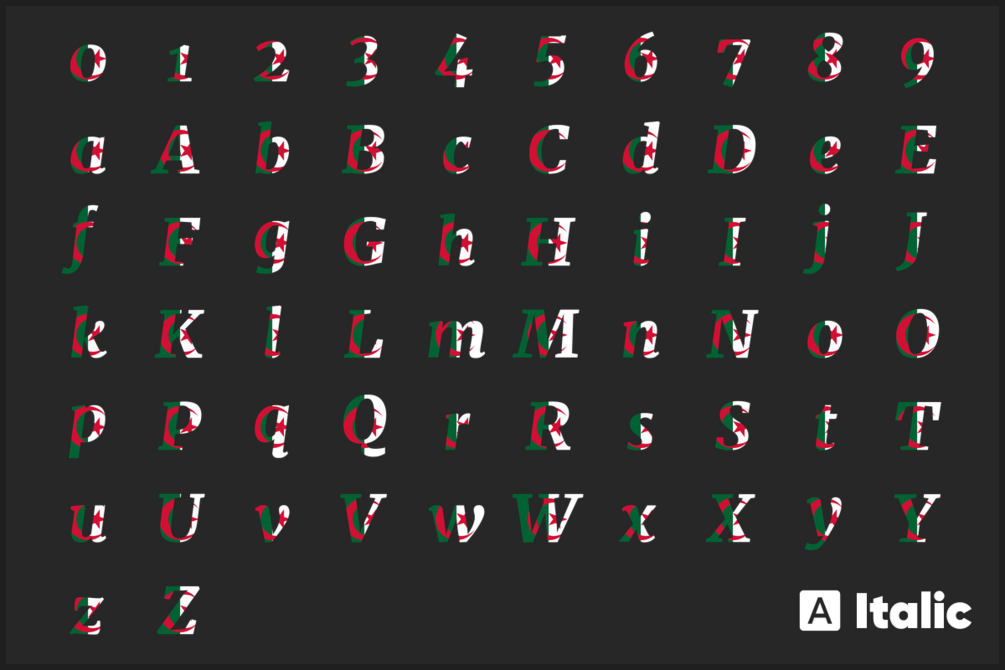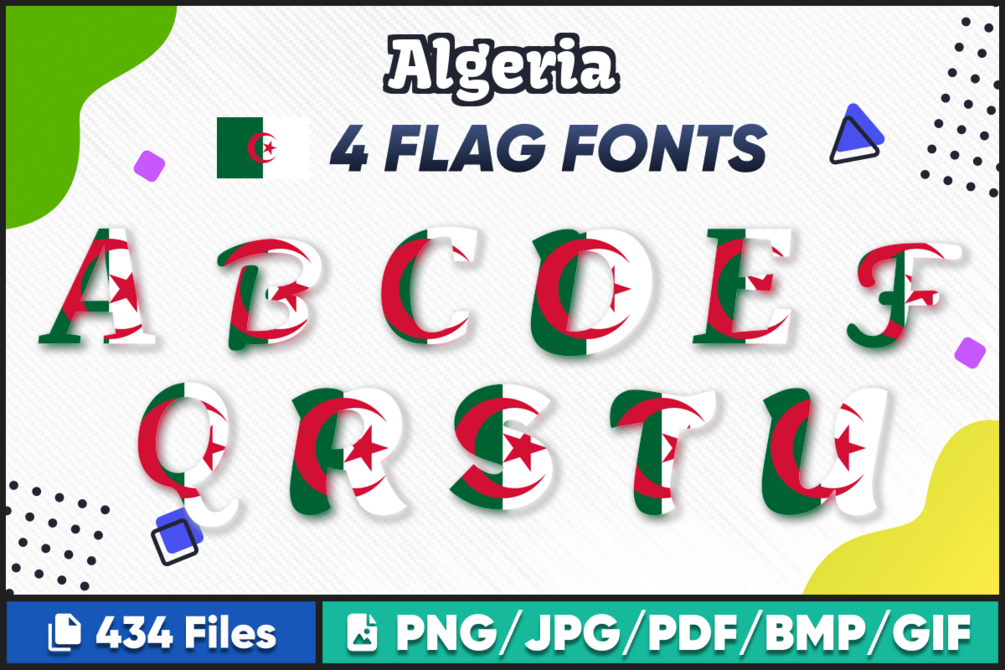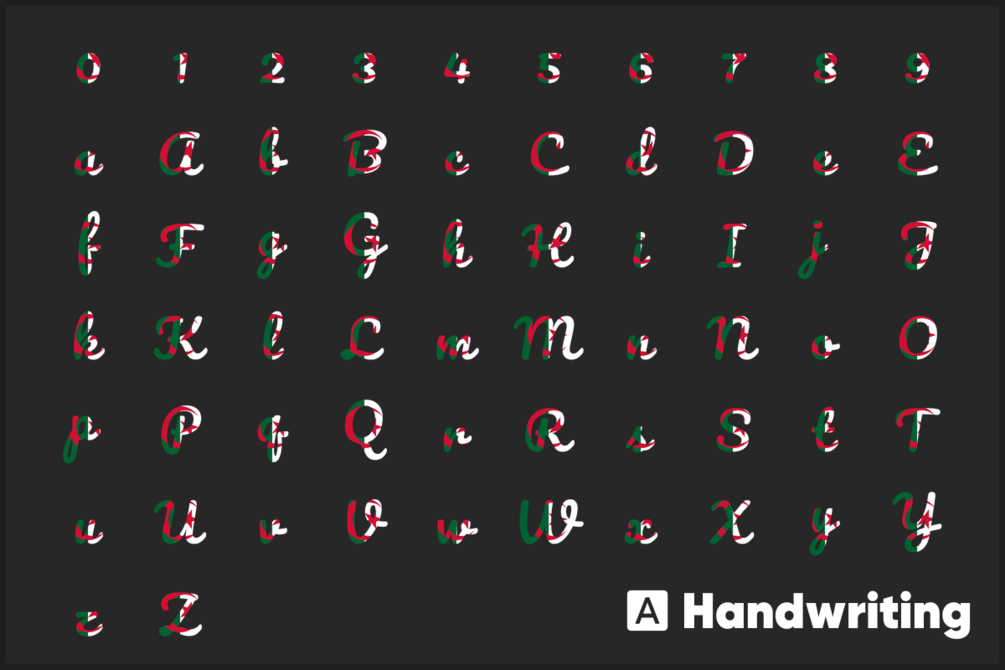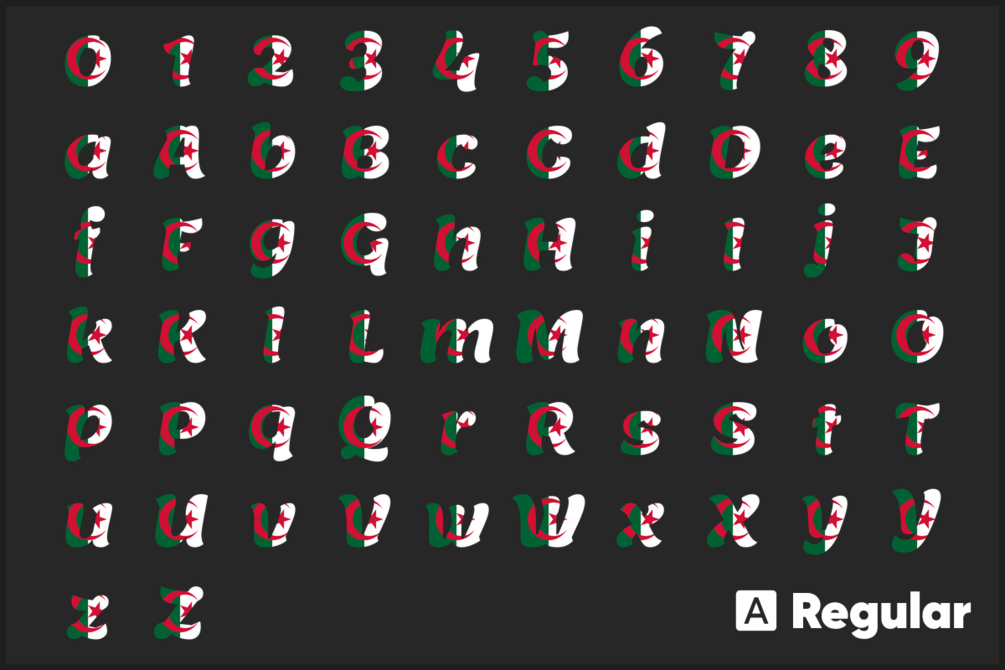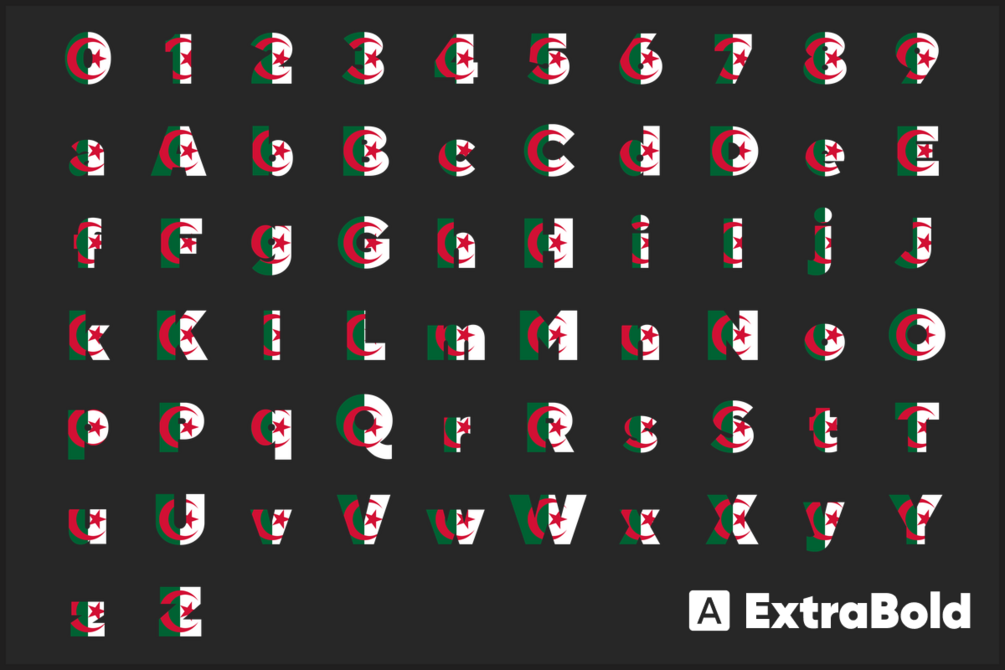
Algeria Font free download
Algeria Font free download Font, Alphabet. Our collection of Algeria Font free download flag fonts features high-quality PNG images in a variety of sizes to fit all your crafting needs. These fonts are perfect for creating unique t-shirt designs, scrapbook pages, photo albums, greeting cards, coffee mugs, and more. Use them with your Cricut or Silhouette cutting machines, or with any graphic design software such as Photoshop, Illustrator, Inkscape, Figma, and Sketch.